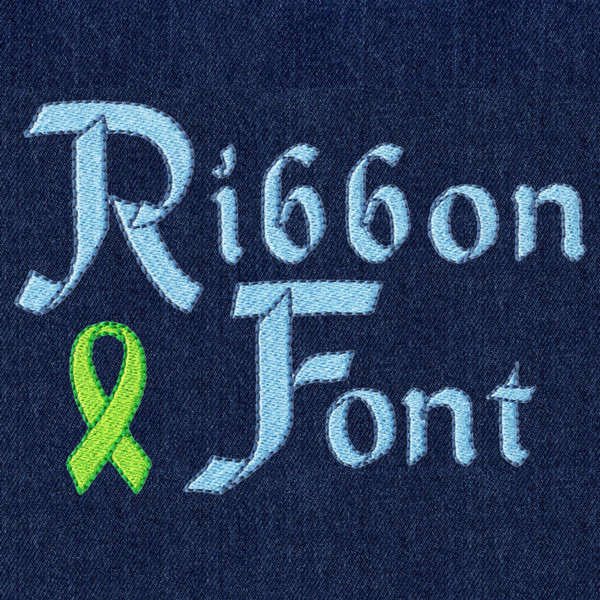
756 Ribbon Font Fill & Floss
756 Ribbon Font Fill & Floss comes in 1", 1.5", 2", 2.5", 3", 3.5" and 4" heights based on the capital "A". Features Uppercase Letters, Lowercase Letters, Numbers, Ten Punctuation Marks and an Awareness Ribbon in all sizes. Characters are stitched with Fill Stitch centers and Floss Stitch outlines/accent parts as two-color set up.
Based on the computer keyboard font Alpine.TTF. Two-Color embroidery designs require proper stabilization to insure that colors align during stitchout-resizing objects will compromise stitch quality.